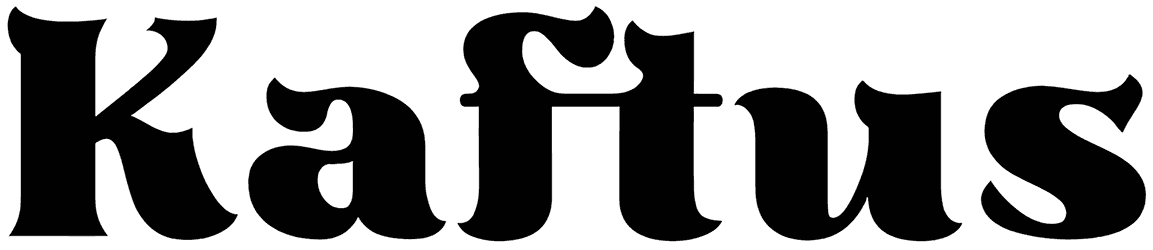
Kaftus Font
The curly curve of this beautiful vintage font will work well for whatever project you have in mind, thanks to its versatility. If you want to offer your posters, quotations, products, headers, logotypes, or anywhere you need to add a dash of funky sense to your text, the Kaftus font is a wonderful option that has a pleasant feeling. Give it a try and share a nice mood with others. If you want more, check out RB.